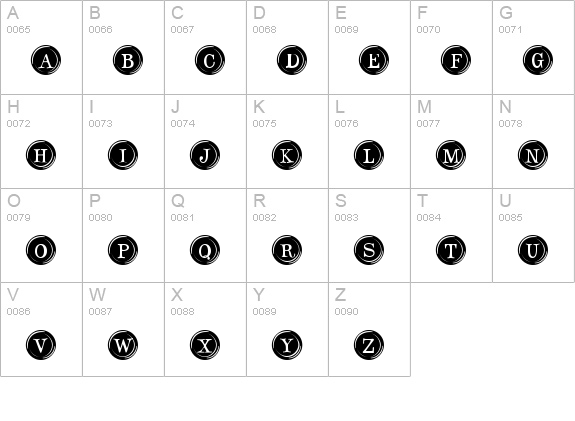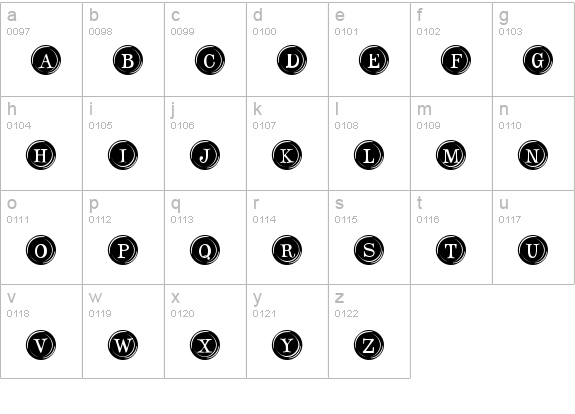
Type Keys Filled Font Details
Introducing Type Keys Filled, a captivating and versatile font that effortlessly combines elegance with a touch of playfulness. This unique typeface is perfect for adding a modern and trendy vibe to any creative project. Type Keys Filled features clean lines and bold strokes that make it visually striking and easy to read, making it ideal for both digital and print designs. Whether you're designing a logo, creating eye-catching headlines, or crafting invitations, this font will surely make a lasting impression. What sets Type Keys Filled apart is not only its exceptional design, but also its accessibility. This font is available for free download exclusively at FontsMarket.com, making it easily accessible to designers and enthusiasts alike. With just a few clicks, you can bring this stunning font into your creative arsenal and unlock its limitless potential. With Type Keys Filled, you have the freedom to let your imagination run wild. Experiment with different sizes, colors, and styles to create unique compositions that reflect your personal style. Whether you're designing for a professional project or simply expressing your creativity, Type Keys Filled is the perfect companion. So why wait? Download Type Keys Filled for free at FontsMarket.com and start exploring the endless possibilities this font has to offer. Elevate your designs and leave a lasting impression with this remarkable and freely available font.